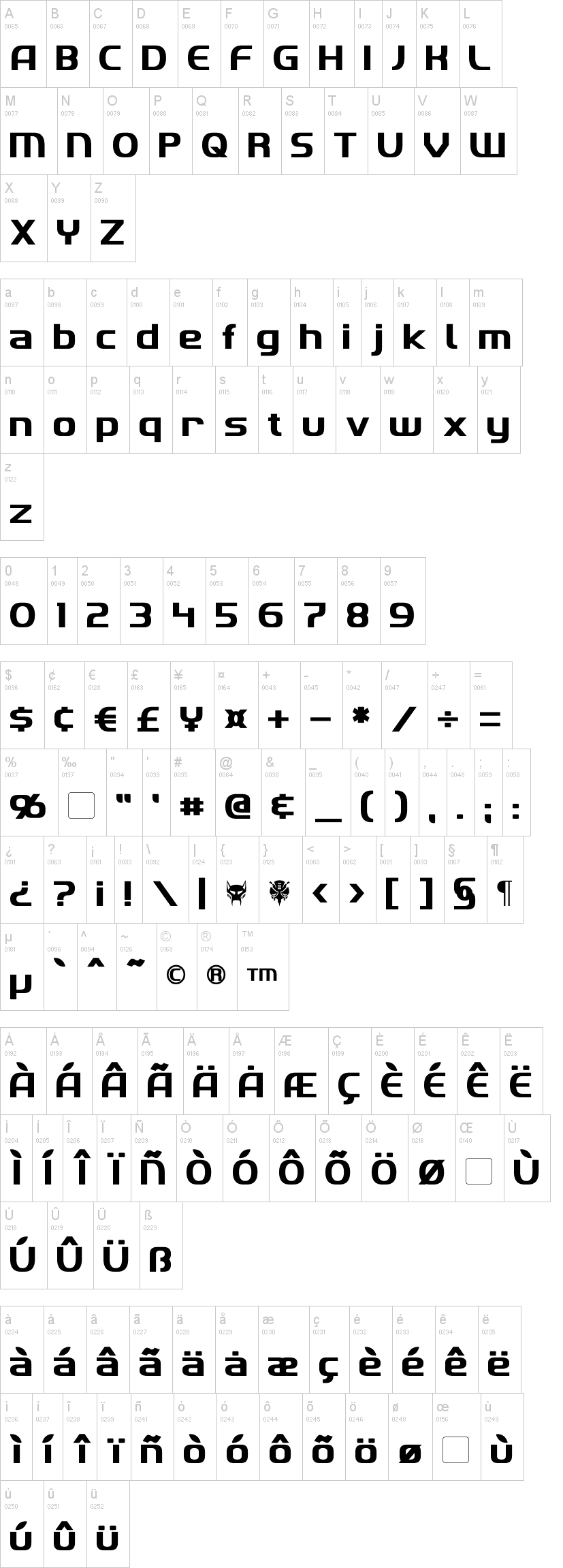
Imaki
This techno-modern typeface is based on the logo of the Takara's "Beast Wars Metals series". Includes full alphabet, lower case, extended punctuation and accents, Euro. Includes bold, italic, and condensed versions.